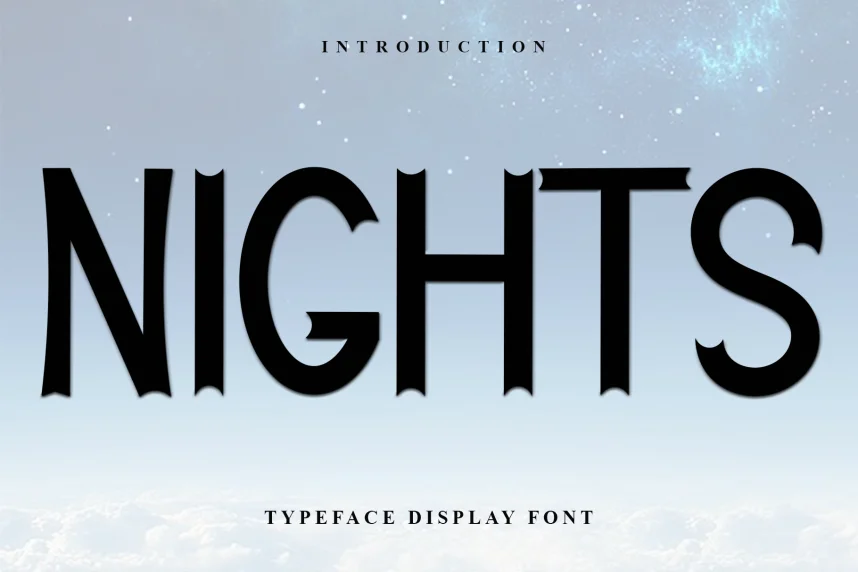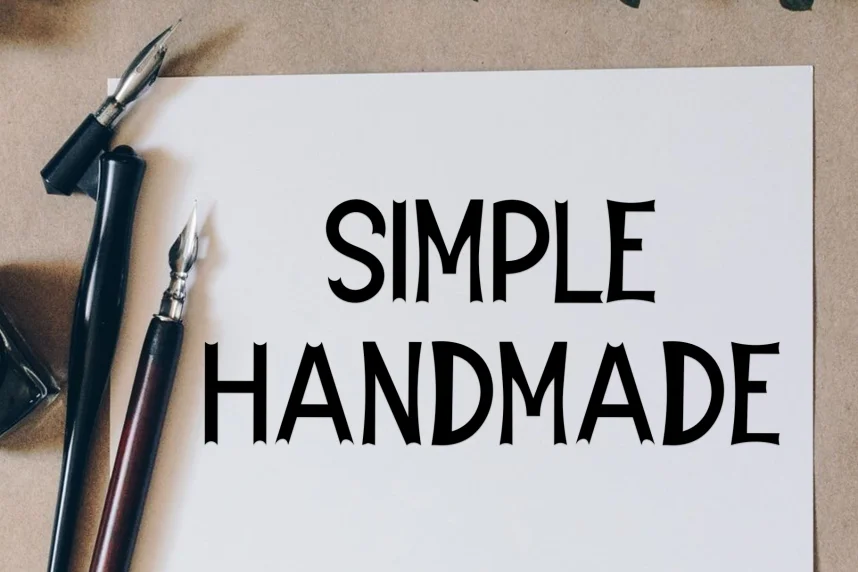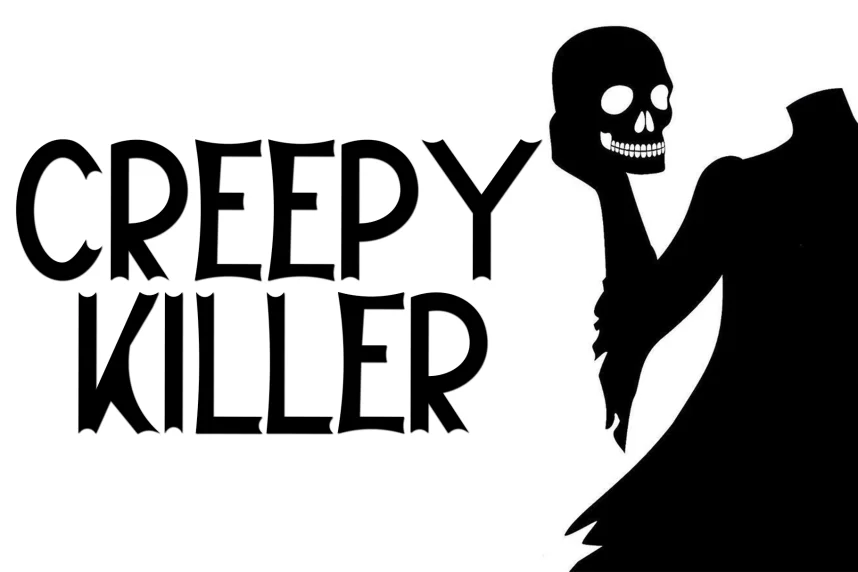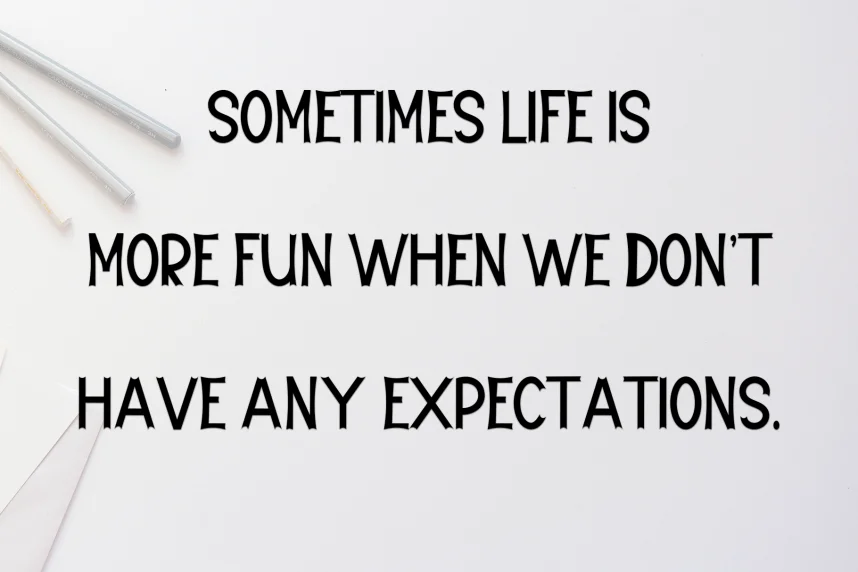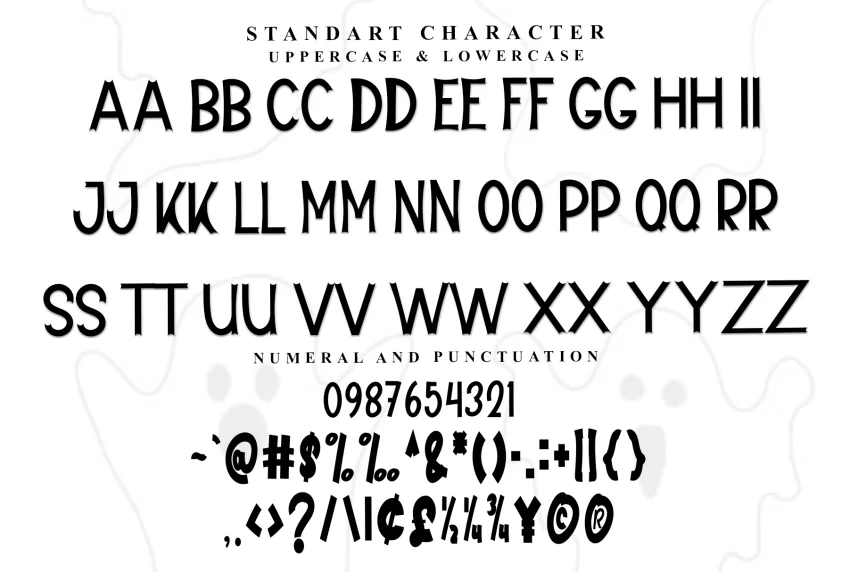
Nights – Playful And Unique Font is designed to bring fun and character to designs without sacrificing readability. Designers often use it for projects where a unique and energetic style is needed to grab attention.
Nights is a display font that features quirky, playful letterforms with exaggerated curves and varying stroke weights. The design feels spontaneous and lively, making it perfect for creative applications that require a touch of fun.